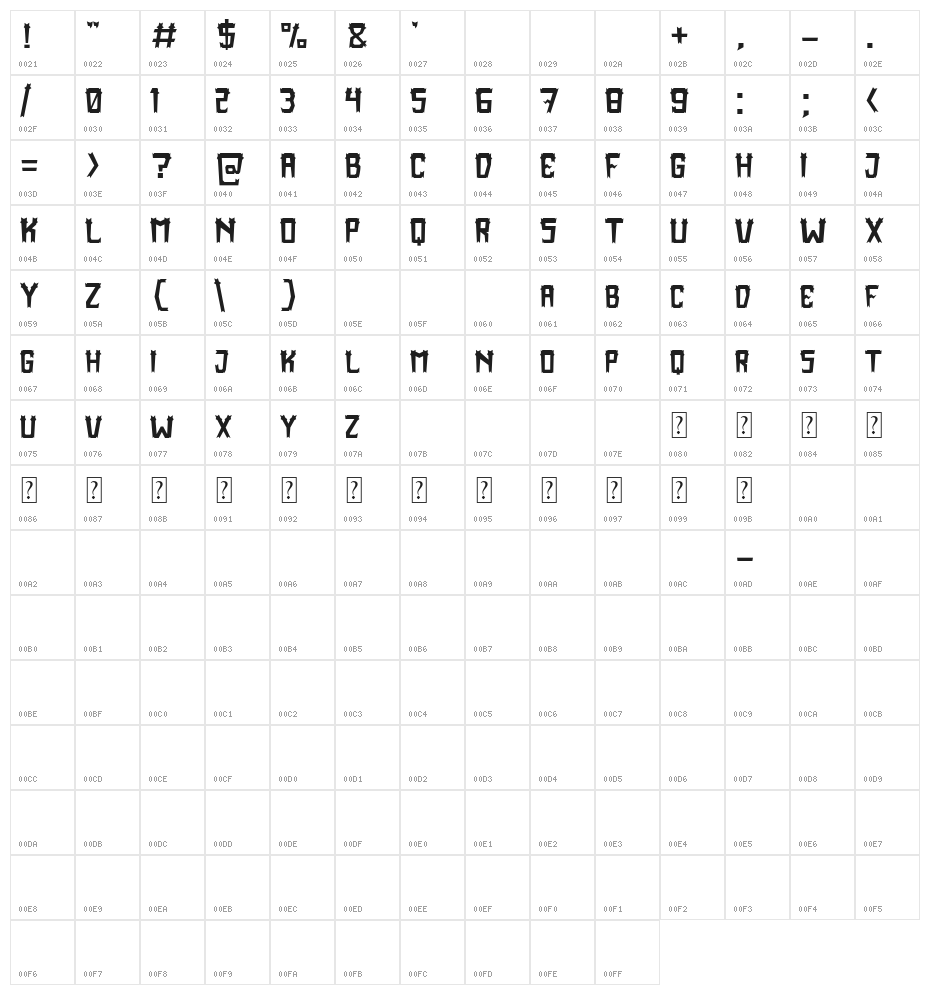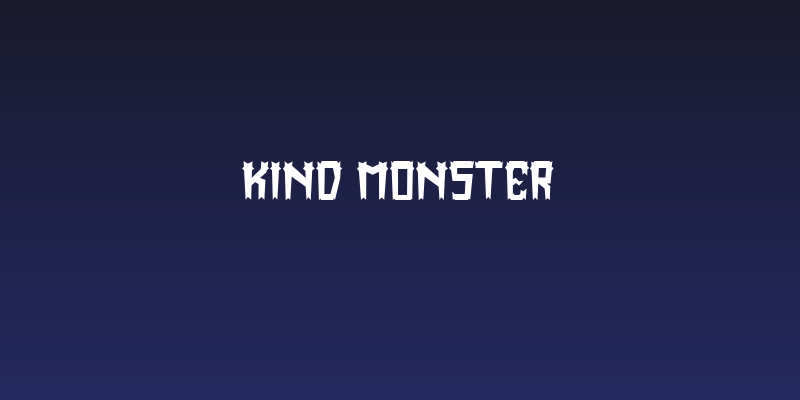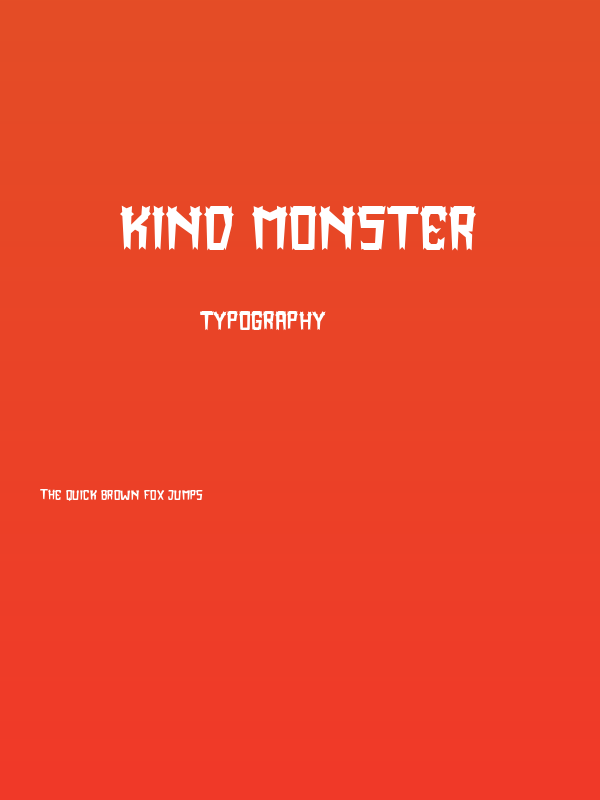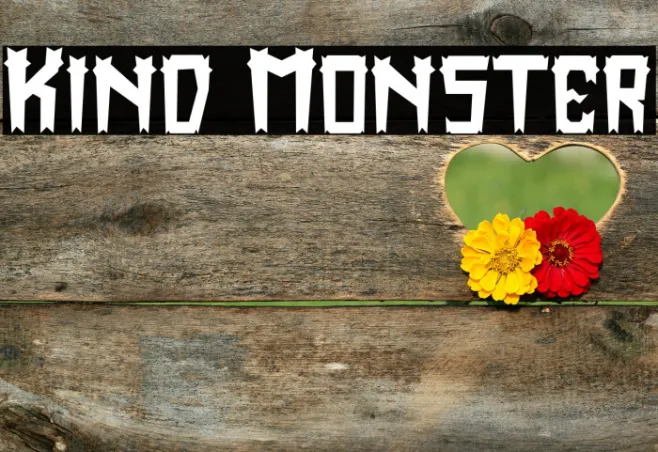
Kind Monster Font
Kind Monster Description
This font features a bold and edgy design with sharp, angular lines that give it a distinctly aggressive and modern appearance. The characters are constructed with pointed edges and a geometric style, creating a sense of movement and energy. The uppercase and lowercase letters maintain a consistent style, with the numbers and special characters following suit. This font's unique design makes it stand out, ideal for projects that require a strong visual impact. The overall aesthetic is both futuristic and slightly intimidating, perfect for themes that embrace a bold and daring look.
| Proposed Projects | Ideal for video game titles, movie posters, branding for edgy products, and any project that requires a strong, impactful visual presence. |